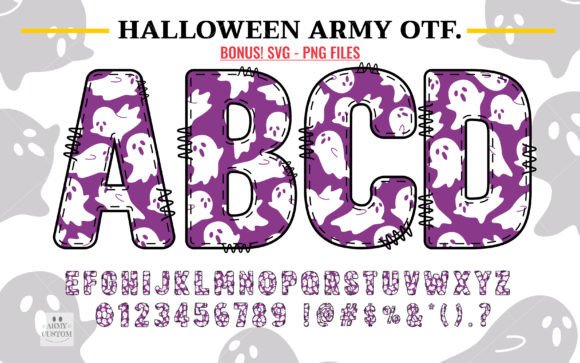
Halloween Army Ghost: A Font with Personality
There's a particular challenge in finding a typeface that captures the playful yet eerie spirit of Halloween without veering into cliché or losing its utility in professional design work. You need something that carries character but doesn't sacrifice legibility. Something that feels festive but still works across commercial applications. The Halloween Army Ghost typeface solves this problem with a distinct visual personality that balances whimsy and sophistication in ways that genuinely surprise me.
What Makes This Typeface Stand Out
Halloween Army Ghost presents a bold, blocky structure with intentionally distressed edges and subtle irregularities that give each letterform an organic, hand-crafted quality. The characters carry a slightly condensed width with generous x-height proportions, making them feel substantial and commanding at larger sizes. There's a playful tension between the military-inspired rigidity of the letter shapes and the ghostly imperfections that soften their edges. It's the kind of visual contradiction that makes a display font genuinely memorable rather than merely decorative.
The personality here leans toward confident and approachable rather than genuinely frightening. Think neighborhood haunted house rather than psychological horror. This quality makes it remarkably versatile for projects targeting diverse audiences, from family-friendly fall festivals to sophisticated seasonal branding campaigns. The typeface communicates festivity without sacrificing credibility, which is harder to achieve than most people realize.
Where This Font Truly Shines
As a premium font designed for display purposes, Halloween Army Ghost performs exceptionally well in contexts where you need immediate visual impact. Logo design for seasonal businesses, October-themed product packaging, event posters, and social media graphics all benefit from its distinctive character. I've seen similar creative fonts used effectively in editorial design for fall magazine spreads, book covers targeting young adult audiences, and menu designs for themed restaurants and bars.
The typeface works particularly well in packaging design for seasonal products. Candy wrappers, craft beer labels, bakery boxes, and specialty food items all gain personality and shelf presence when set in a typeface that immediately communicates the Halloween aesthetic. Blog banners and website headers for seasonal content also benefit enormously from this kind of purposeful typography choice. The font essentially does the atmospheric heavy lifting, freeing you to focus on messaging and layout strategy.
For small business owners and entrepreneurs, this typeface offers genuine practical value. Branded social media graphics, email newsletter headers, promotional flyers, and even simple business cards for seasonal pop-up shops gain professional polish when you use a cohesive, thematic typeface rather than defaulting to generic alternatives. The Halloween Doodle Font Color version adds another dimension entirely, introducing vibrant color directly into the letterforms for projects where you want maximum visual energy without additional design elements.
Working with Color and Compatibility
The Halloween Doodle Font Color represents something genuinely different from standard typography. Color fonts embed visual information directly into the typeface file, meaning each character arrives with its own color palette, textures, and decorative details baked in. This technology creates possibilities that traditional fonts simply cannot match, particularly for digital applications where you want complex visual effects without manually layering multiple design elements.
However, compatibility matters here, and understanding the technical landscape saves real frustration. The standard black version of Halloween Army Ghost works seamlessly with Cricut Design Space and other cutting machine software, making it ideal for physical craft projects, vinyl decals, iron-on transfers, and paper-based creations. If you're working primarily with cutting machines for DIY projects or small-batch production, this version gives you everything you need.
The color version operates differently. It requires design software that supports OpenType color font technology, including Adobe Photoshop, Adobe Illustrator, Silhouette Studio, and Inkscape. The OTF and TTF files for the color variant will not function in Cricut Design Space, which is an important distinction for crafters and makers to understand before purchasing. This limitation isn't unique to Halloween Army Ghost; it's simply how color font technology currently works across platforms.
Practical Font Pairing and Design Strategy
When integrating Halloween Army Ghost into a broader design system, consider pairing it with clean sans serif fonts for body text. The display font's personality works best when it has breathing room, surrounded by simpler typography that handles longer reading passages. A straightforward geometric sans serif or a humanist typeface creates effective contrast without competing for attention. Avoid pairing it with other decorative or script fonts, which typically creates visual noise rather than hierarchy.
Take time to explore the full character set, test it across your typical project types, and consider how it fits within your existing design assets. Good typography decisions compound over time, and seasonal fonts with genuine character tend to become trusted workhorses rather than one-time purchases.